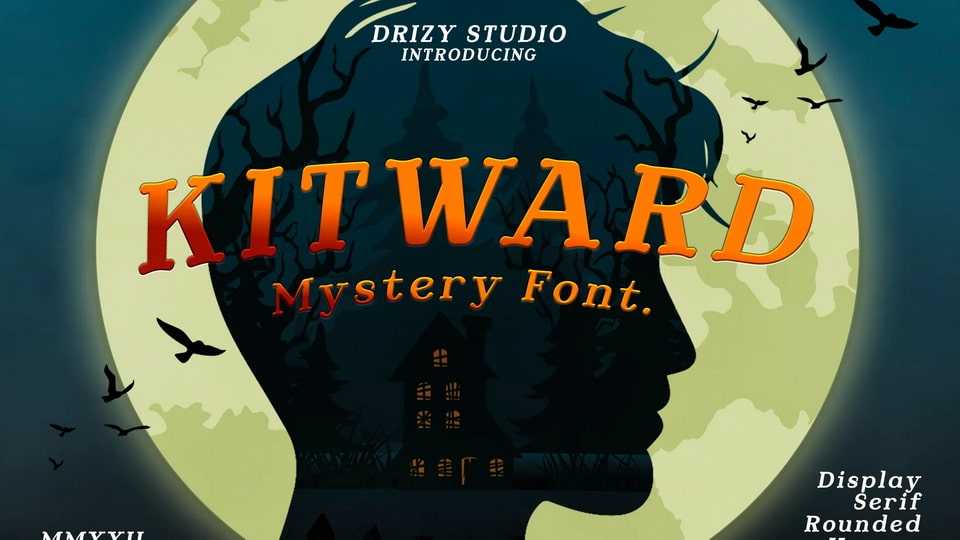
Download Kitward font, a mystery serif typeface with a whimsical look. Kitward font offers all the basic mystery styles you will need for a successful project especially for Halloween theme.
Designer: Drizy Studio